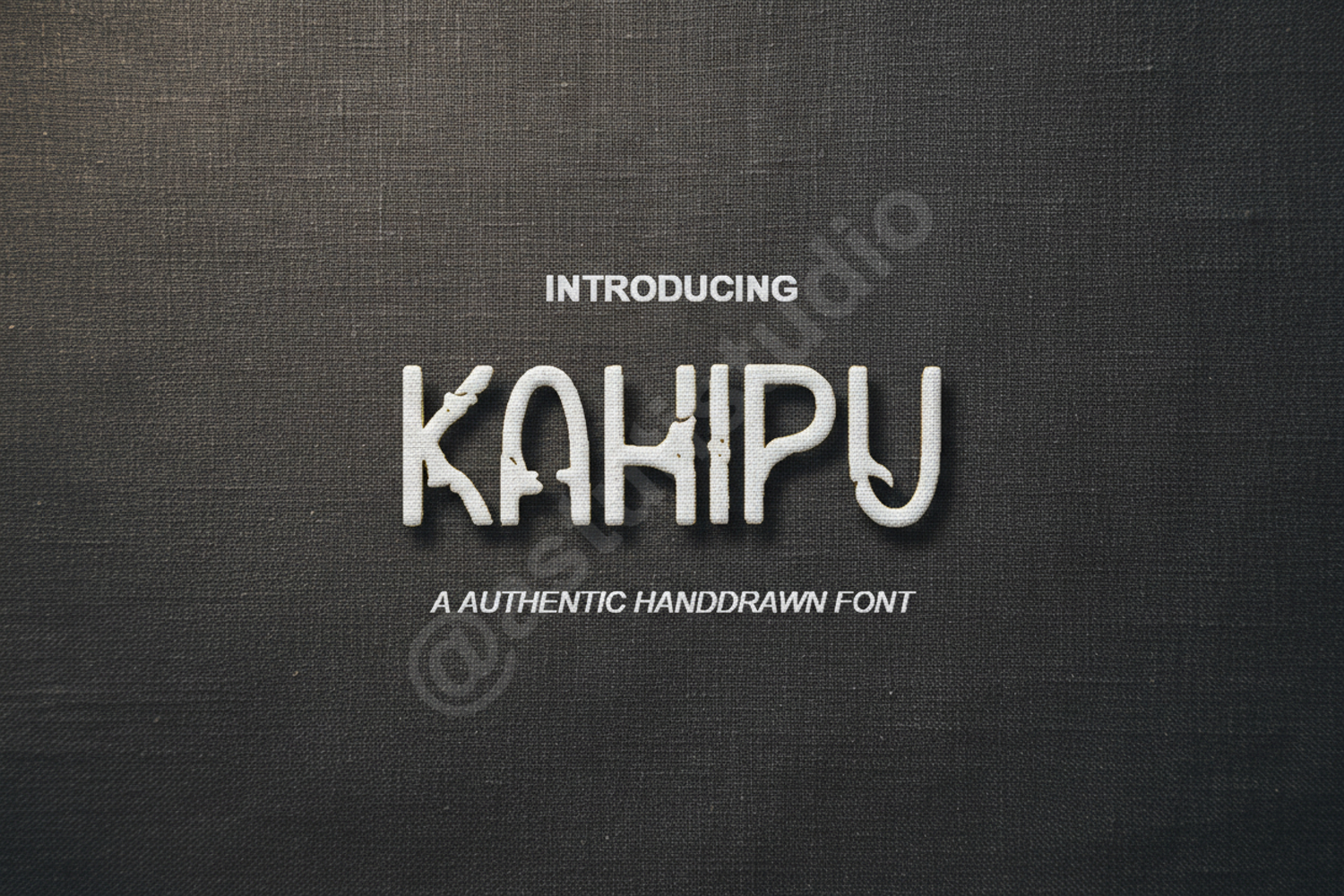
Kahipu - Elegant Modern Serif Display Font
Kahipu
Elevate your creative projects with Kahipu, a premium serif display font that balances classic elegance with a modern edge. Meticulously crafted for designers who demand sophistication, Kahipu offers clean lines and unique character shapes that make every word stand out. Whether you are working on a high-end fashion brand or a minimalist lifestyle blog, this font provides the professional touch your work deserves.
- Branding and Logo Design: Create a memorable identity for luxury brands and startups.
- Editorial Layouts: Perfect for magazine headings, pull quotes, and book covers.
- Wedding and Event Stationery: Add a touch of class to invitations, menus, and place cards.
- Social Media Graphics: Stand out on Instagram and Pinterest with eye-catching typography.
- Product Packaging: Enhance the shelf appeal of premium goods and beauty products.